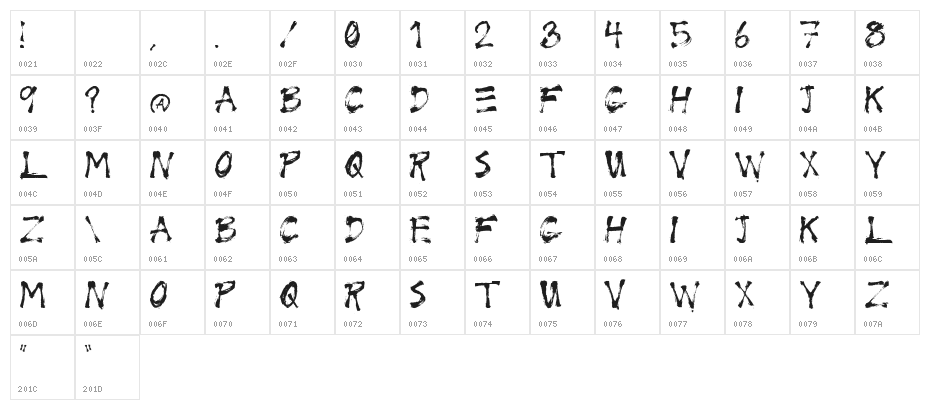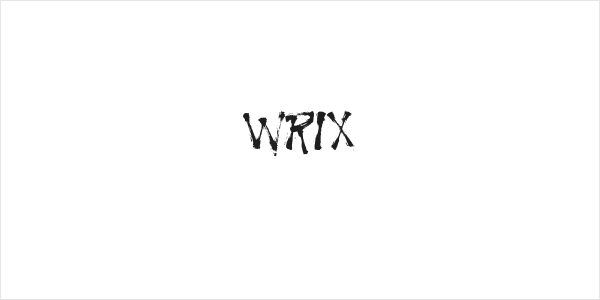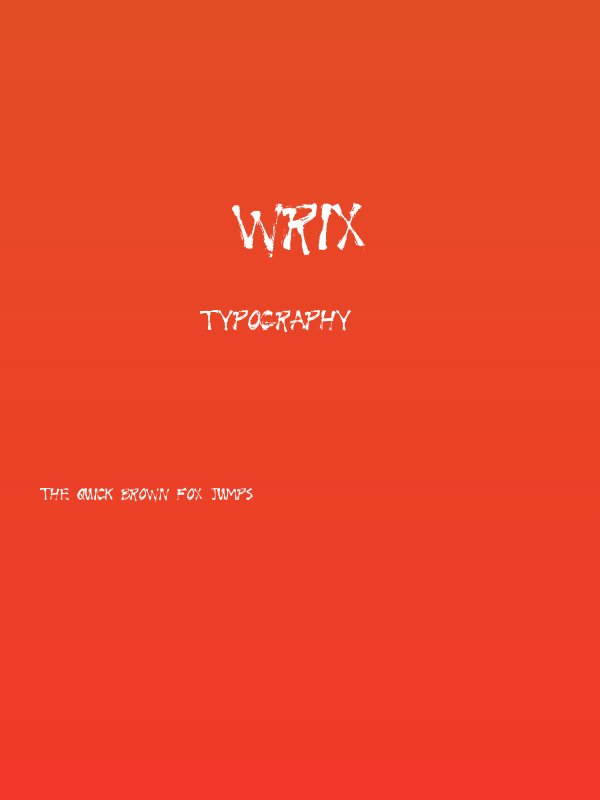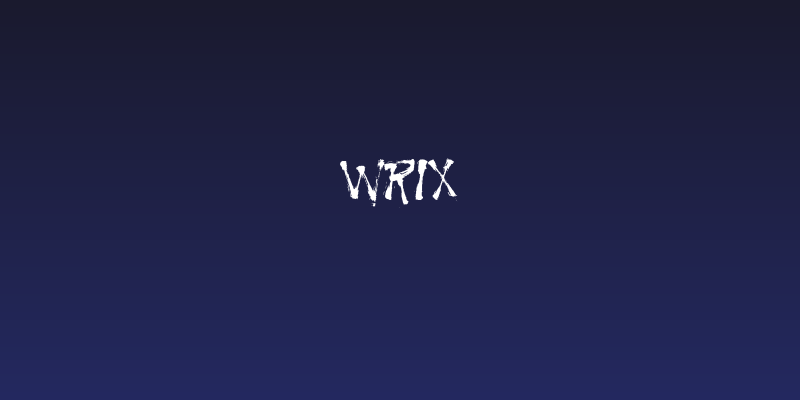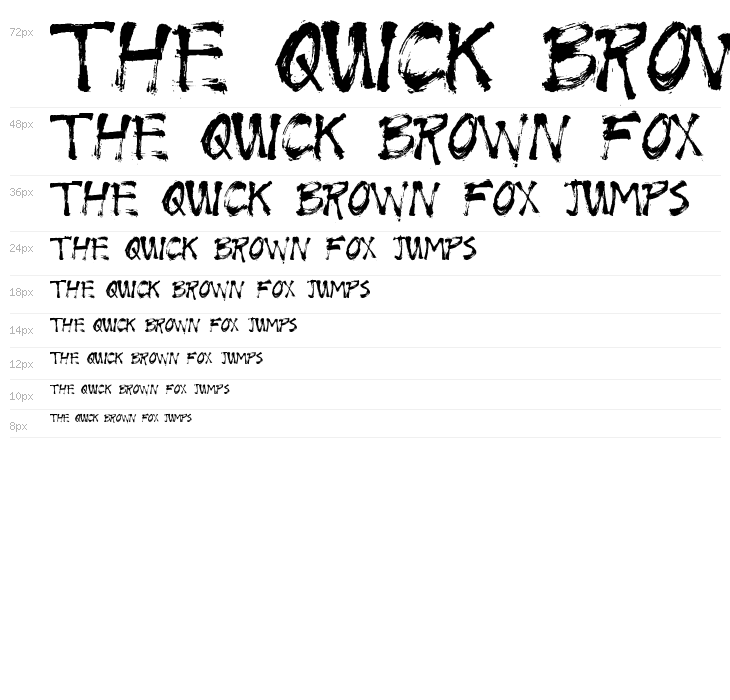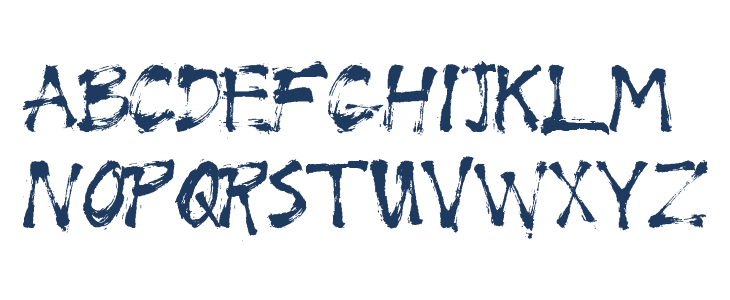
WRIX Font
WRIX Description
This font features a bold and expressive brushstroke style, characterized by its rough, textured appearance. The letters have an uneven, hand-painted look, giving them a dynamic and energetic feel. The uppercase and lowercase letters maintain a consistent style, with each character exhibiting unique variations in stroke width and texture. Numbers and special characters follow the same artistic approach, ensuring a cohesive look across all glyphs. The overall impression is one of creativity and spontaneity, making it ideal for projects that require a strong visual impact.
| Proposed Projects | Ideal for artistic projects, posters, album covers, and branding that require a bold, expressive touch. |